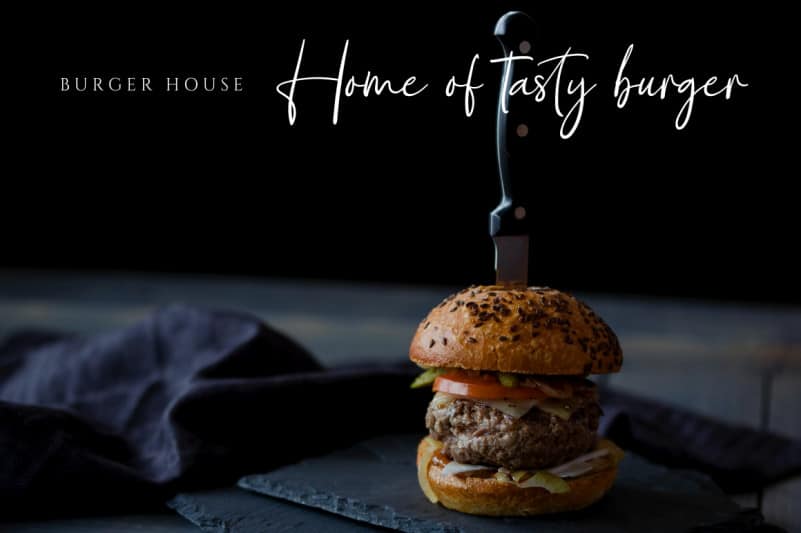
Girl Story Signature Script Font
Girl Story Signature Script Font is a delicate and elegant handwritten font. Its distinct and well rounded letters make this font a masterpiece. This font is PUA encoded which means you can access all of the glyphs and swashes with ease!By installing or using this font, you are agree to the Product Usage Agreement: